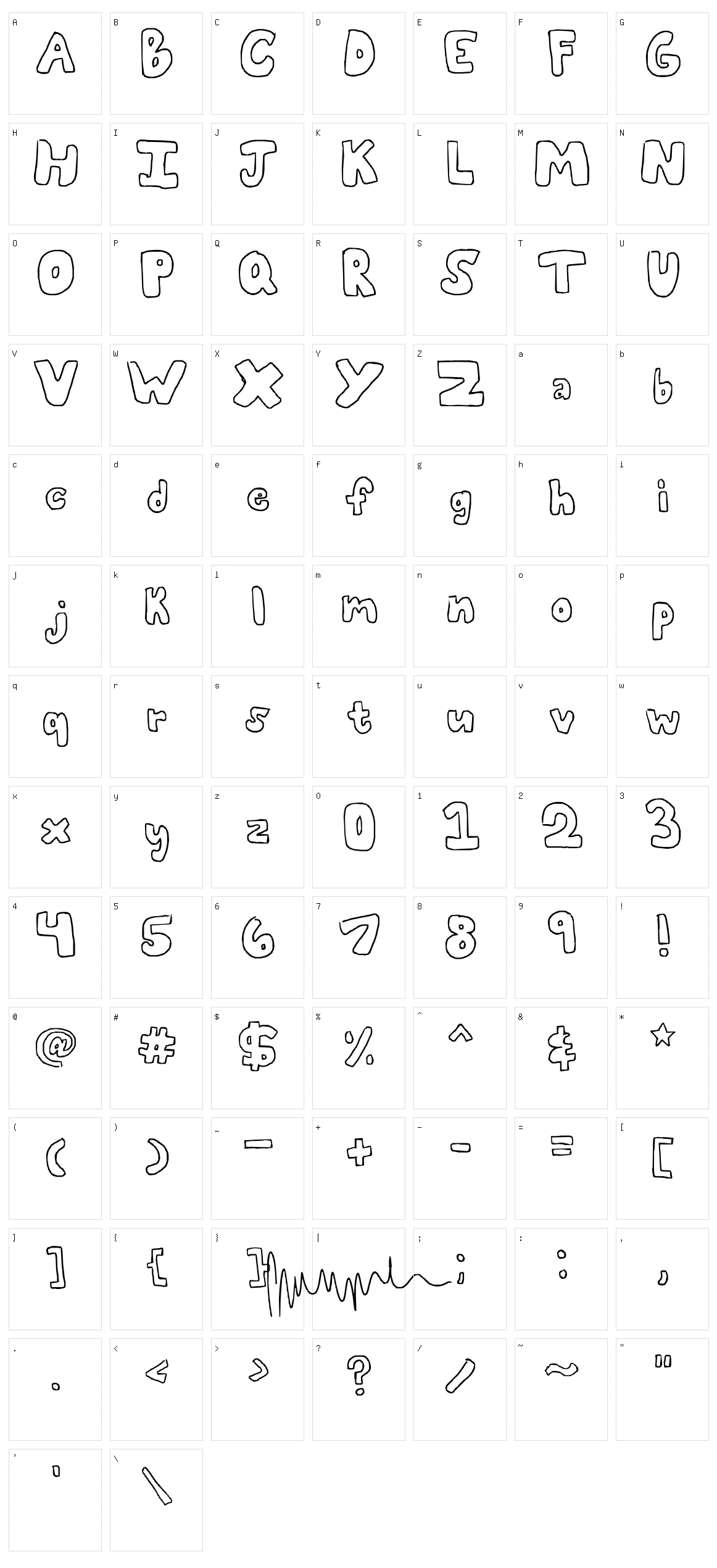
The free font Bubblii is carefully designed by The Bubble Letters, showcasing a thoughtful balance of creativity and usability and falls under the Cartoon font style. When you download the ZIP file, it contains only 19.11 KB of font files, making it lightweight and quick to download. Please review the license details below to understand permitted usage and distribution rights. If license information is not available, we recommend using this font for personal projects only or contacting the author directly for commercial usage permissions.